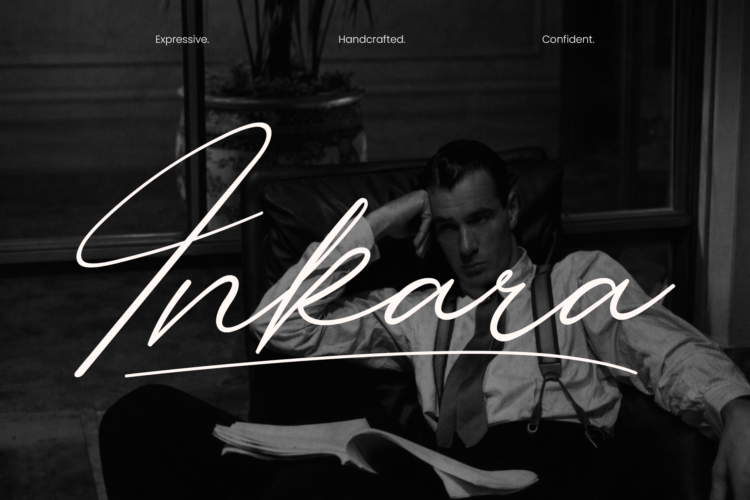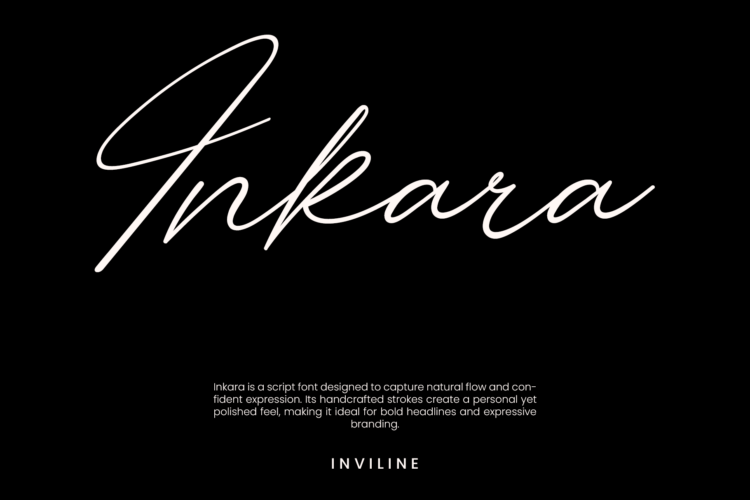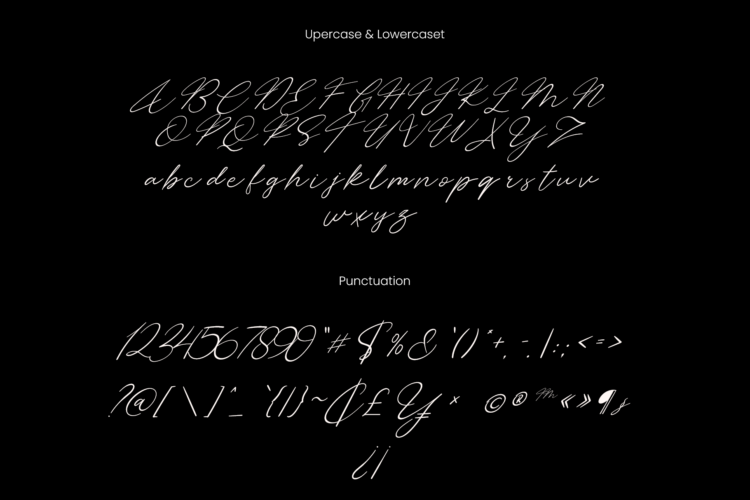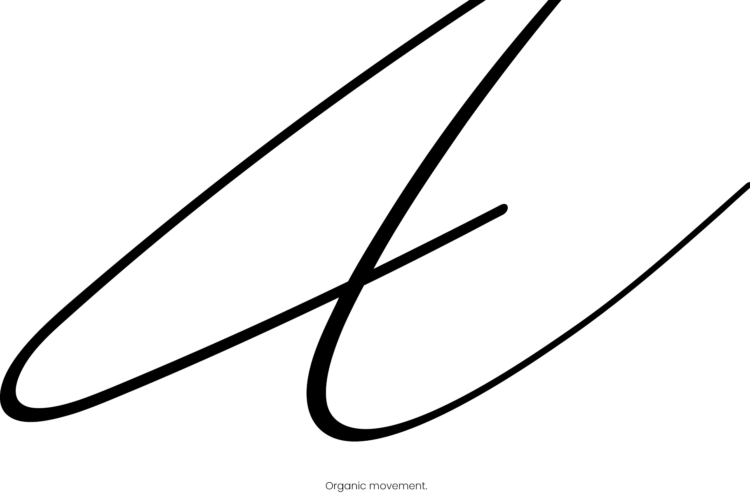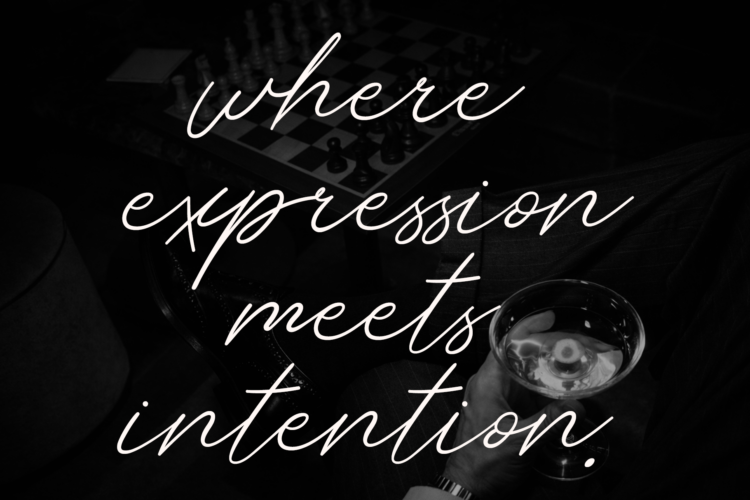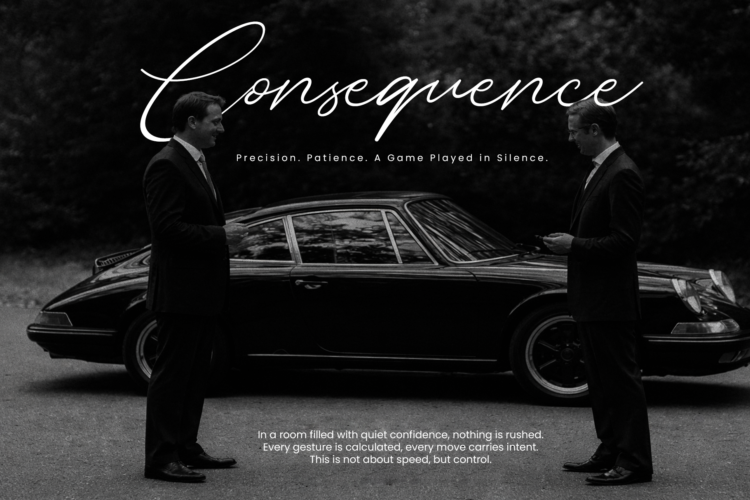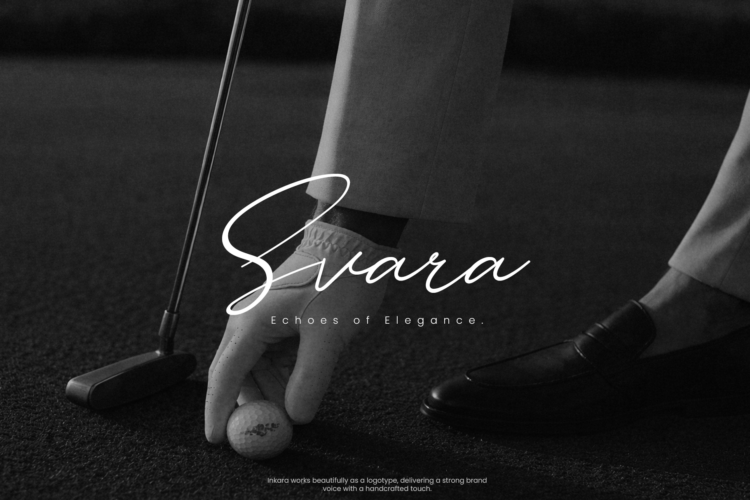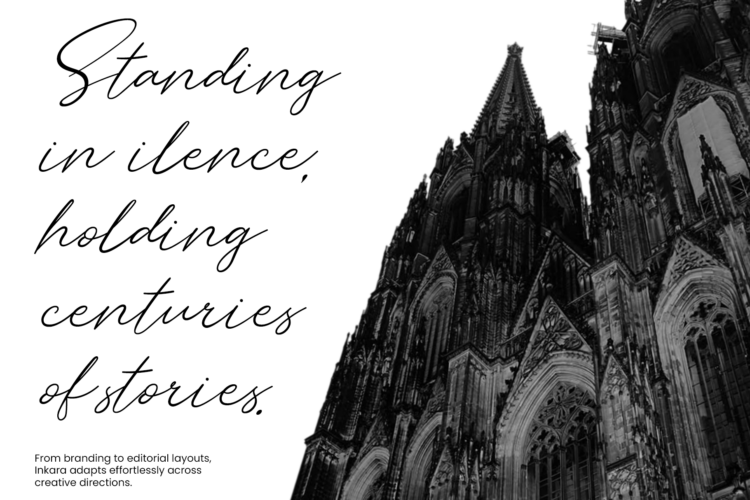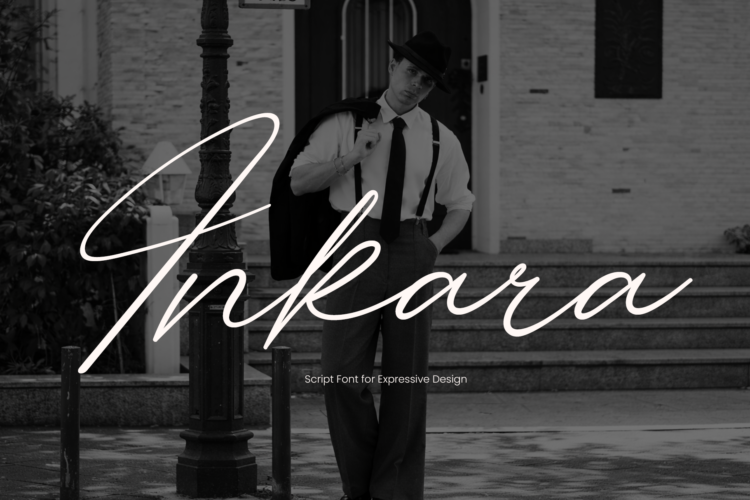
Inkara – Handwritten Font
Inkara is a handwritten script font inspired by the elegance of vintage cinema titles. Featuring soft curves, authentic strokes, and nostalgic charm, it’s designed to evoke a sense of timeless storytelling. With its refined letterforms and multilingual support, Inkara is perfect for editorial layouts, branding, film posters, and classic product packaging. Add a touch of cinematic drama and old-Hollywood glamor to your designs with this signature-style font.
- Uppercase & lowercase characters
- Numerals & punctuation
- Multilingual support
- Ligatures & alternates
- Handcrafted script style
- High legibility in print & digital
- Film posters & title sequences
- Book covers & chapter headers
- Classic product packaging
- Vintage-style branding
- Editorial layouts & magazines
- Wedding & luxury stationery